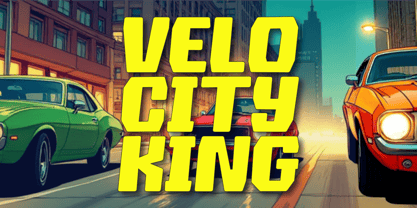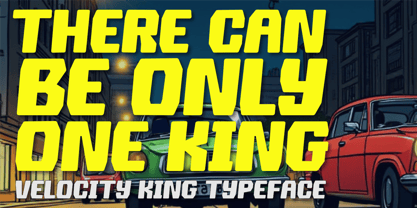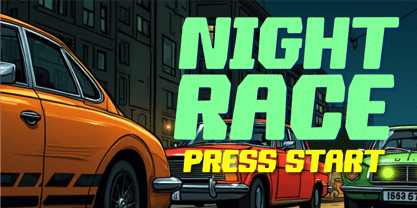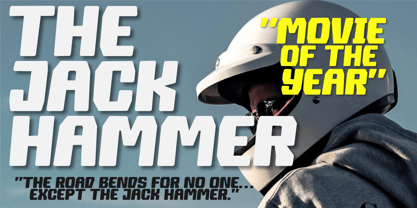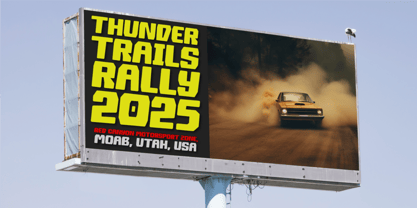
Velocity King
by Epiclinez
The Velocity King Font Family was designed by Aldy Sidik and published by Epiclinez. Velocity King contains 1 styles. More about this family
Unleash the raw power of speed with Velocity King—a bold, high-octane racing display font designed for those who live life in the fast lane. Inspired by motorsport decals, its high-speed chases, and the sleek curves of performance machines, this fast-paced font delivers the energy and aggression your design needs to stand out.
Crafted for maximum impact, the Velocity King features sharp angles, aerodynamic strokes, and tight letter spacing that mimics the rush of a race car tearing down the track. Whether you're designing a racing logo, sports brand, automotive apparel, or an adrenaline-pumping movie poster, this speed font will dominate every layout with high-performance aesthetics.
This bold racing typeface is the perfect choice when working on a race car logo font, motorsport font, or high-speed typography that demands attention. Velocity King drives the message home with no brakes, from game titles to racing flyers, from YouTube intros to automotive font designs.
Designers: Aldy Sidik
Foundry: Epiclinez